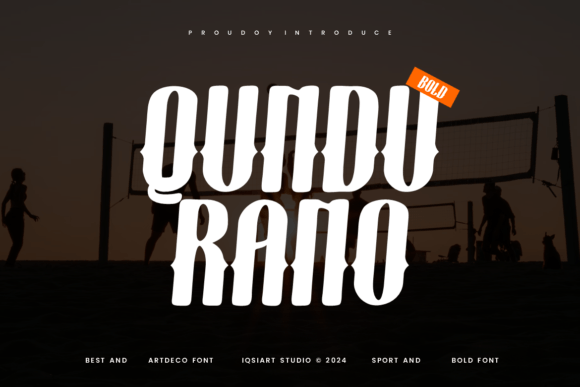
Qundurano Font: A Timeless Art Deco Masterpiece
In the realm of typography, few fonts have managed to capture the essence of Art Deco elegance and modern sophistication as effectively as Qundurano. This bold, Art Deco-style font has been making waves in the design community with its strong, clean lines and vintage feel. Qundurano’s design features thick letters and geometric shapes, making it the ideal choice for creating eye-catching titles, logos, and posters that demand attention.
What is Qundurano Font?
Qundurano is a bold, Art Deco-style font that embodies the glamour and luxury of the Roaring Twenties. Its design is characterized by thick letters, geometric shapes, and a clean, minimalist aesthetic that exudes sophistication and elegance. The font’s bold lines and sturdy construction make it perfect for headlines, titles, and short texts that require a strong visual impact.
Qundurano’s design is inspired by the opulent architecture, art, and design of the Art Deco era. The font’s geometric shapes, such as triangles, circles, and squares, are reminiscent of the era’s iconic skyscrapers, luxury cars, and ornate jewelry. The font’s bold, clean lines and minimalist aesthetic also pay homage to the era’s emphasis on modernity, simplicity, and functionality.
Key Features of Qundurano Font
- Bold and Eye-Catching: Qundurano’s bold design makes it perfect for creating eye-catching titles, logos, and posters that demand attention.
- Art Deco Style: Qundurano’s Art Deco-style design features geometric shapes, clean lines, and a minimalist aesthetic that evokes the luxury and glamour of the Roaring Twenties.
- Geometric Shapes: The font’s design incorporates geometric shapes, such as triangles, circles, and squares, which add a touch of modernity and sophistication.
- Clean and Minimalist: Qundurano’s clean and minimalist design makes it perfect for use in a variety of design projects, from luxury brands to modern art.
- Classic yet Modern: Qundurano’s design strikes a perfect balance between classic elegance and modern sophistication, making it a versatile font for a wide range of applications.
Usage Ideas for Qundurano Font
Qundurano’s versatility and elegance make it perfect for a wide range of design projects. Here are some usage ideas to get you started:
- Logos and Branding: Qundurano’s bold, Art Deco-style design makes it perfect for creating luxurious logos and branding materials for high-end companies.
- Posters and Flyers: The font’s eye-catching design and bold lines make it ideal for creating posters and flyers that demand attention.
- Titles and Headlines: Qundurano’s bold design and clean lines make it perfect for use in titles and headlines for movies, TV shows, and books.
- Packaging Design: The font’s elegant design and geometric shapes make it suitable for use in packaging design for luxury products.
- Web Design: Qundurano’s clean and minimalist design makes it perfect for use in web design, particularly for luxury brands and modern art websites.
Tips and Tricks for Using Qundurano Font
To get the most out of Qundurano, here are some tips and tricks to keep in mind:
- Use it Sparingly: Qundurano’s bold design can be overwhelming if used excessively. Use it sparingly to create visual interest and emphasis.
- Pair it with Simple Fonts: Qundurano’s bold design can be paired with simple fonts to create visual contrast and add elegance to your design.
- Experiment with Colors: Qundurano’s geometric shapes and clean lines make it perfect for use with a variety of colors and gradients.
- Pay Attention to Kerning: As with any font, pay attention to kerning to ensure that Qundurano’s letters are spaced evenly and aesthetically.
Alternatives to Qundurano Font
If you’re looking for alternative fonts to Qundurano, here are some options to consider:
- Art Deco: As its name suggests, Art Deco is a font that embodies the luxury and glamour of the Art Deco era.
- Bauhaus: Bauhaus is a geometric font that shares Qundurano’s emphasis on clean lines, geometric shapes, and modernity.
- Monotype: Monotype is a classic font that features a similar clean and minimalist aesthetic to Qundurano.
In conclusion, Qundurano is a timeless Art Deco masterpiece that embodies the luxury and glamour of the Roaring Twenties. Its bold design, geometric shapes, and clean lines make it perfect for creating eye-catching titles, logos, and posters that demand attention. With its versatility and elegance, Qundurano is a font that can be used in a wide range of design projects, from luxury brands to modern art.